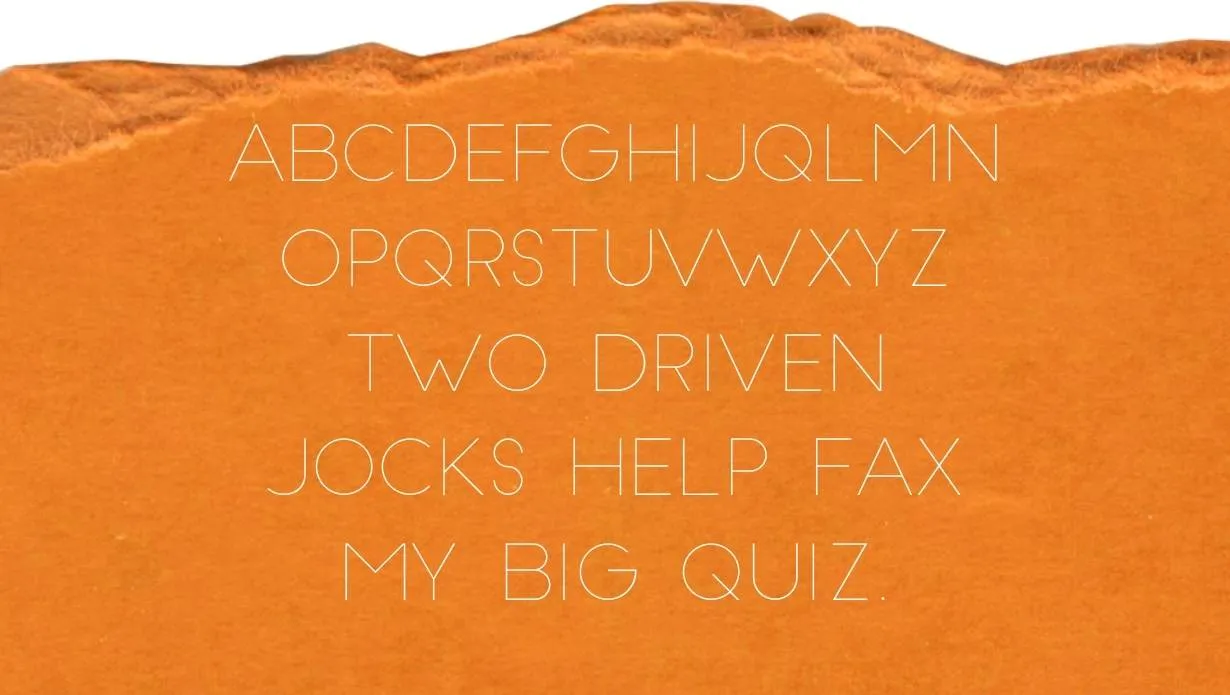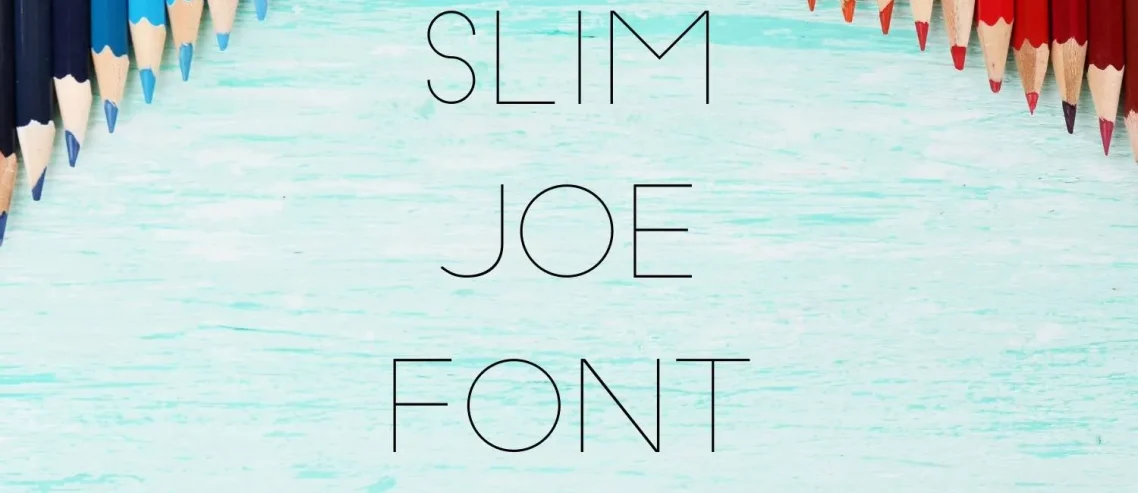
Slim Joe Font is a very charming and stylish typeface that also comes in italic features. Ion Lucin is a very top font designer that also created this typeface full of creativity.
| Style | Sans-serif |
- Slim Joe regular
View of Slim Joe Font